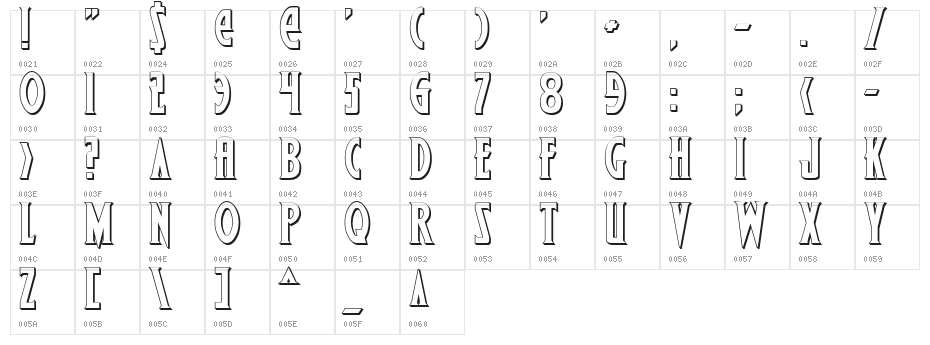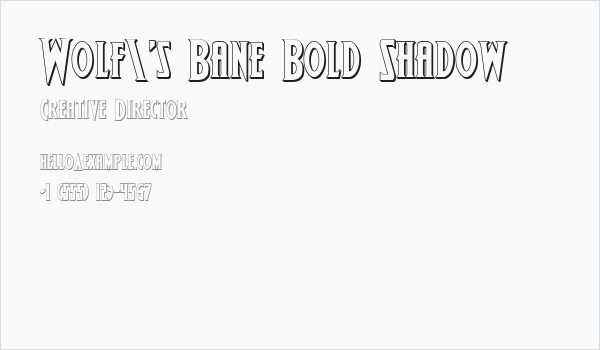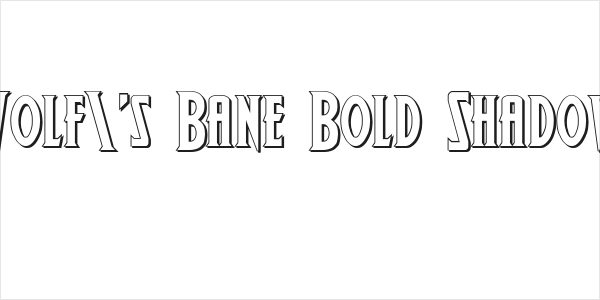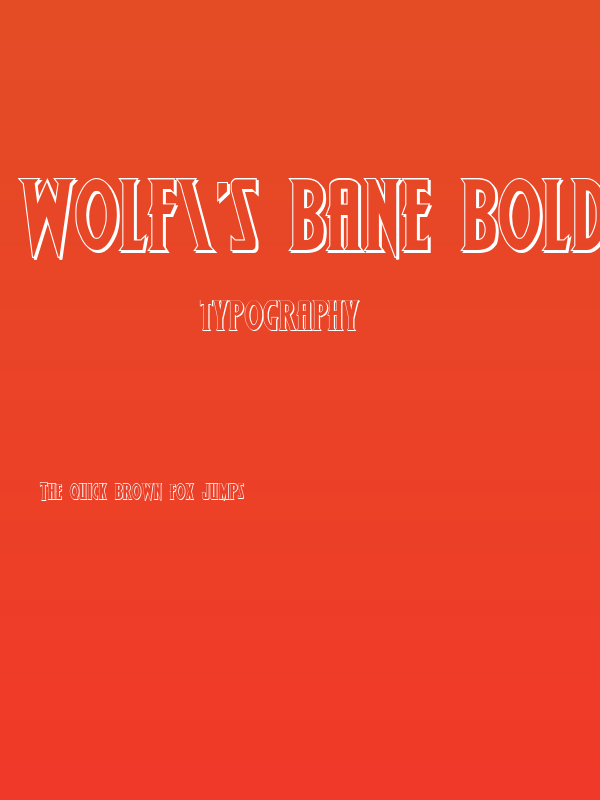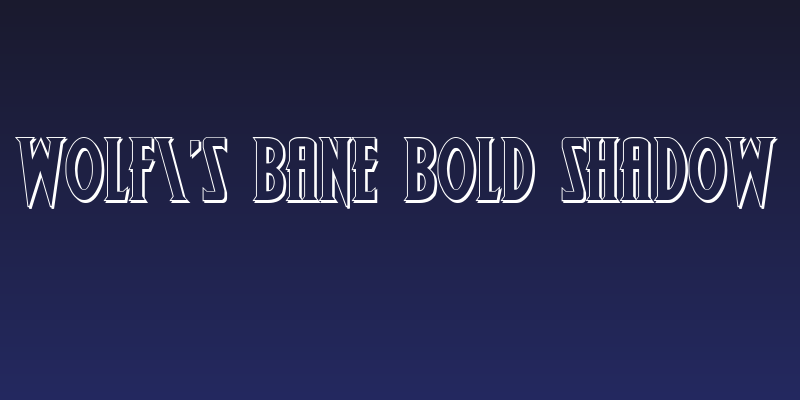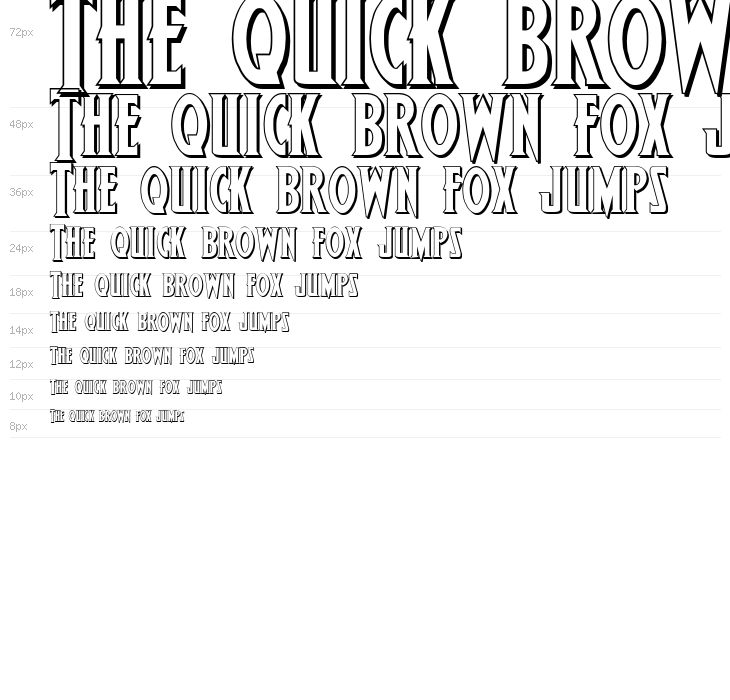
Wolf's Bane Bold Shadow Font
Wolf's Bane Bold Shadow Description
This font features a bold and dramatic style with a shadow effect that adds depth and dimension to each character. The uppercase letters are tall and imposing, with sharp angles and a strong presence. The lowercase letters maintain the same boldness, ensuring consistency throughout the typeface. The numerals are equally striking, with a design that complements the overall aesthetic. Special characters are included, each with the same shadowed effect, enhancing the font's cohesive look. This font is ideal for making a statement and capturing attention.
| Proposed Projects | Ideal for posters, headlines, logos, and any design requiring a strong, eye-catching typeface. |